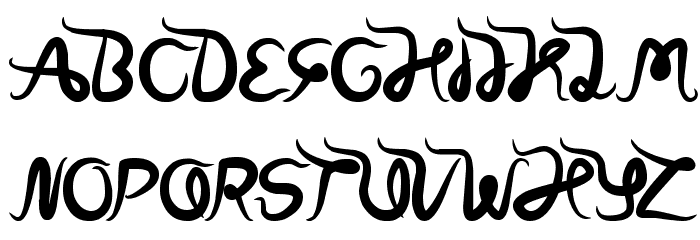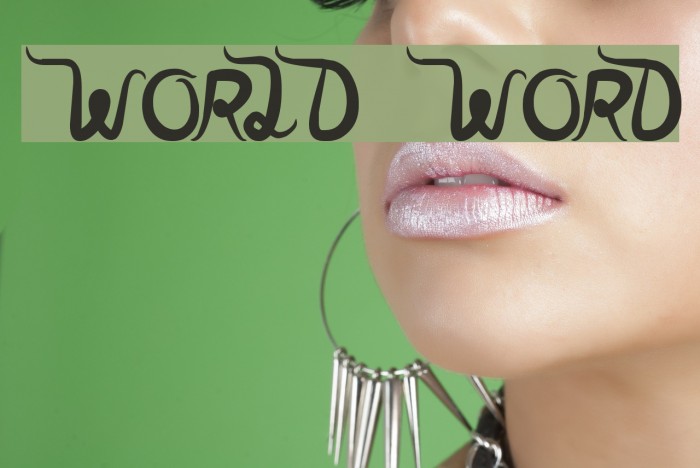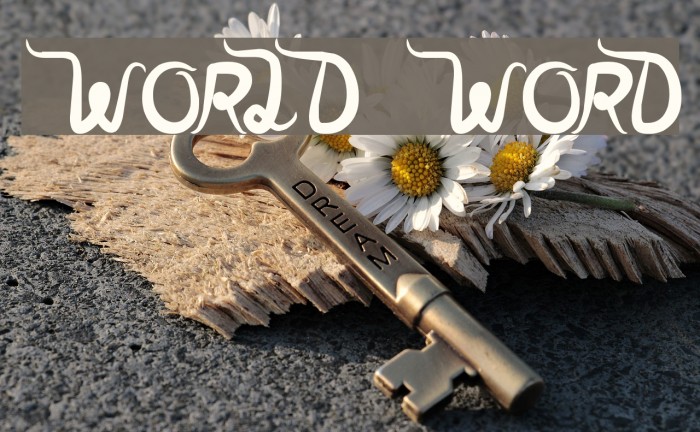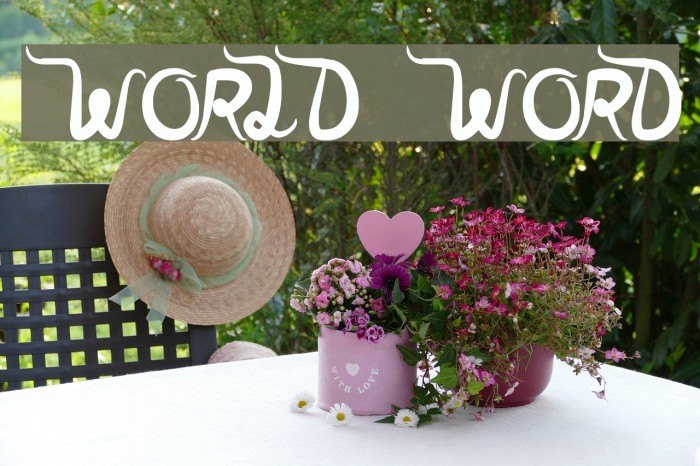
world word Font
This font features a unique and artistic design with flowing, calligraphic strokes that give it a whimsical and decorative appearance. The letters are characterized by their bold, sweeping curves and intricate details, creating a sense of movement and elegance. The uppercase and lowercase letters maintain a consistent style, with the uppercase letters exhibiting more pronounced flourishes. The overall look is both playful and sophisticated, making it suitable for creative and expressive projects.
A whimsical, decorative font with bold, flowing calligraphic strokes.
- Proposed Projects: Ideal for invitations, greeting cards, artistic posters, and branding that requires a touch of elegance and creativity.
- Use Case: Logos, Headlines, Artistic projects